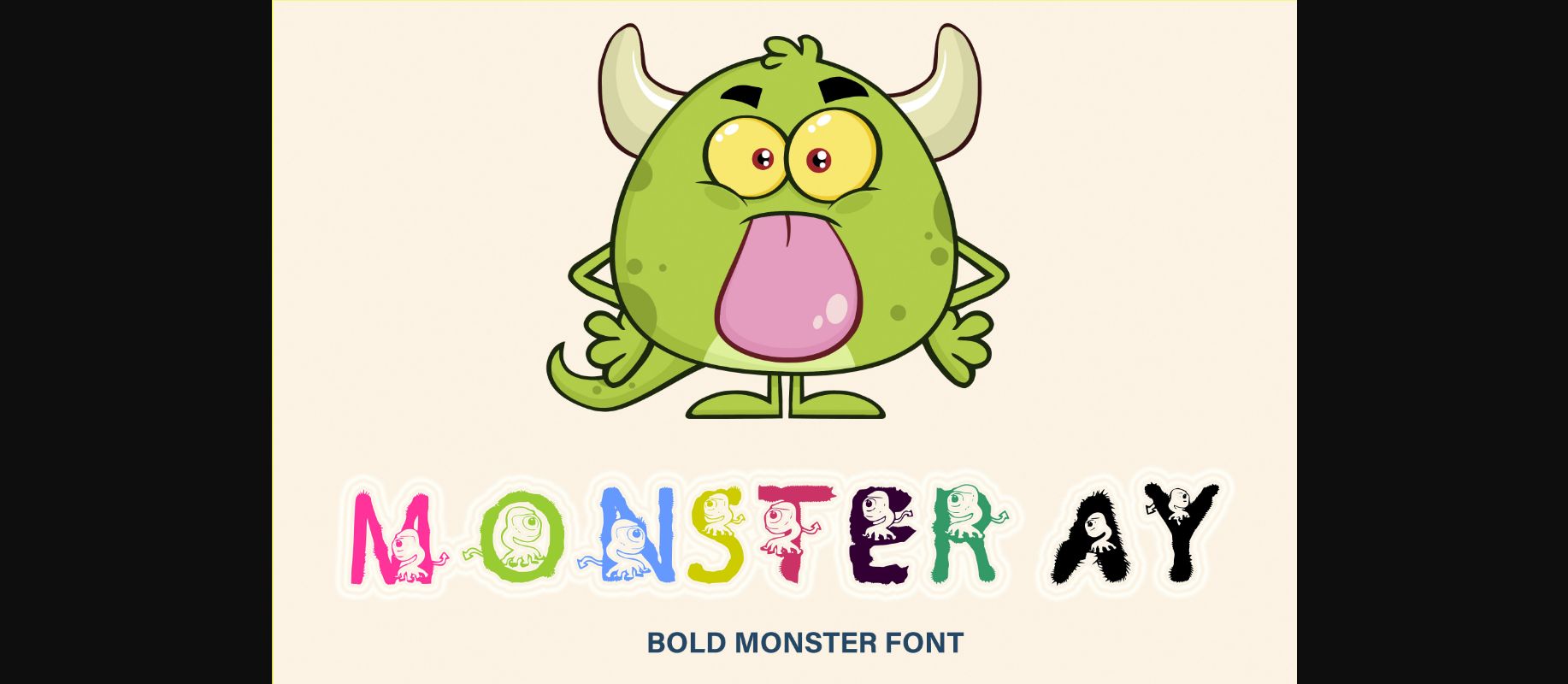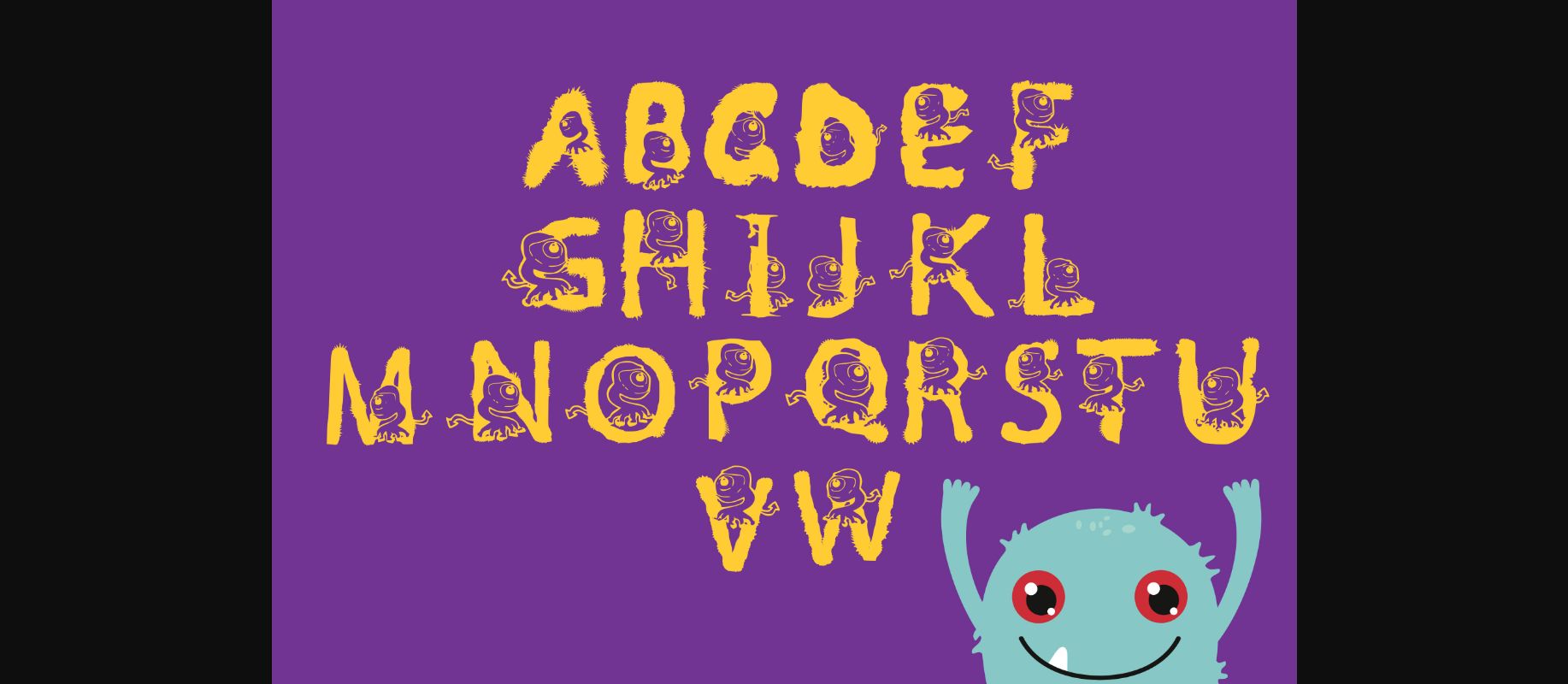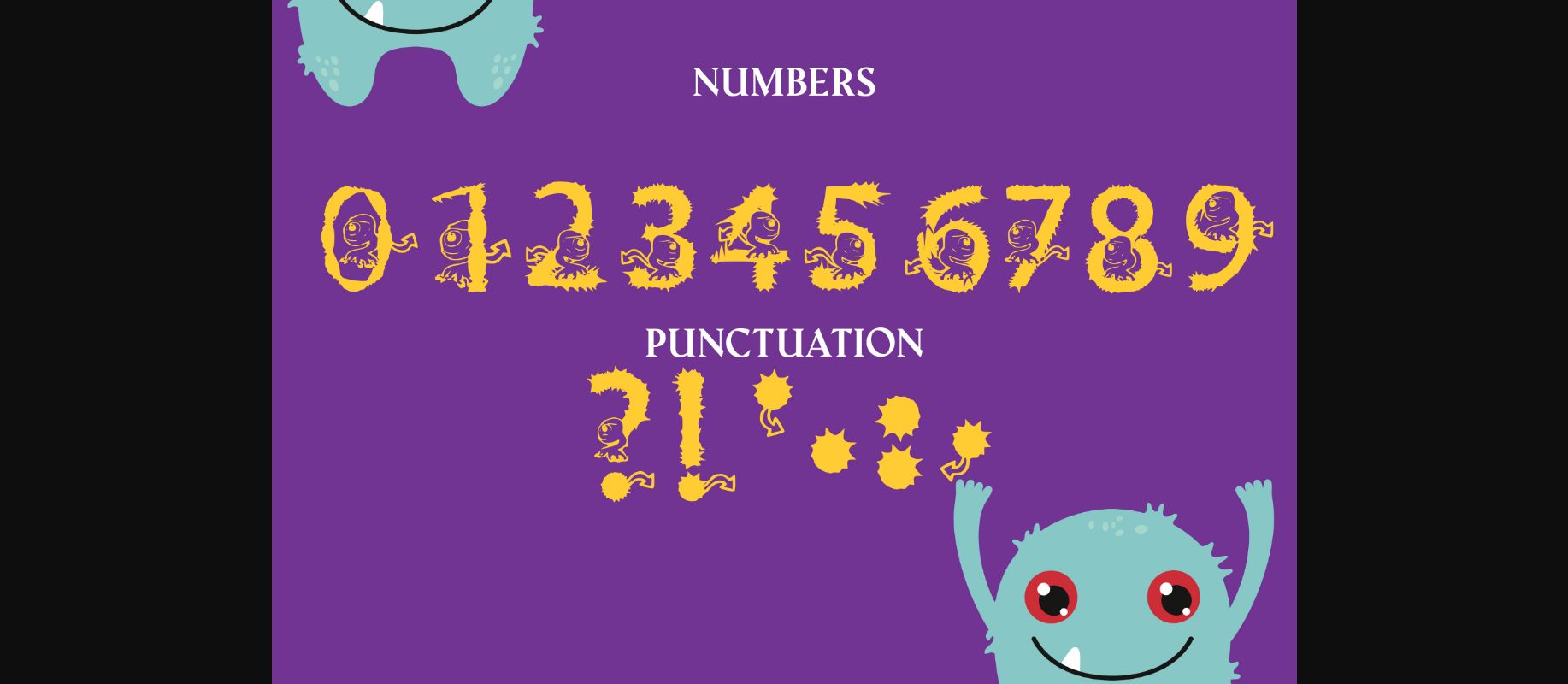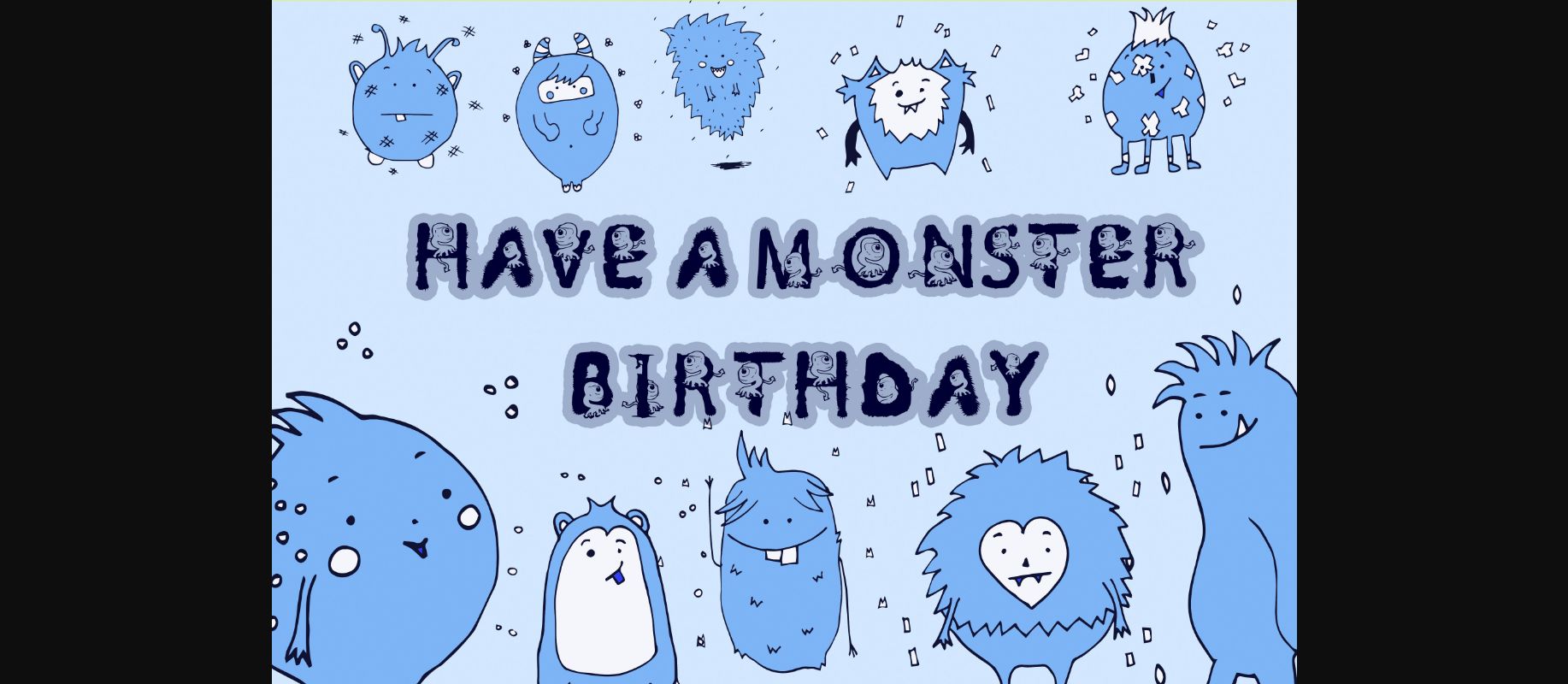
Monster Ay is a bold and spooky lettered decorative font. It is perfectly suitable for any Halloween-related project ideas and more. The only limit is your imagination.